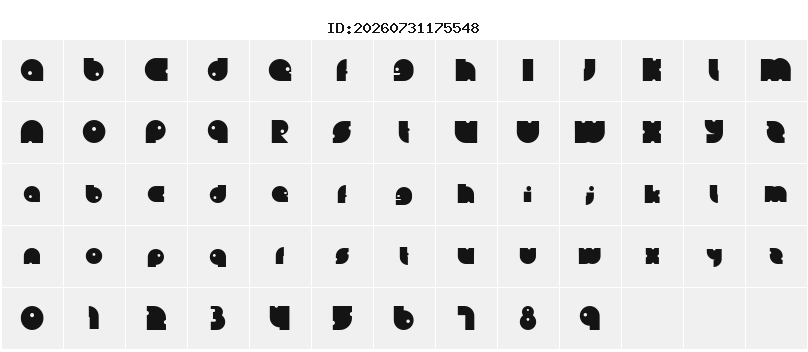
Lein Bold.ttf is a modern, elegant sans-serif font designed for ultimate readability and visual harmony. Perfect for branding, headlines, web design, and print materials.